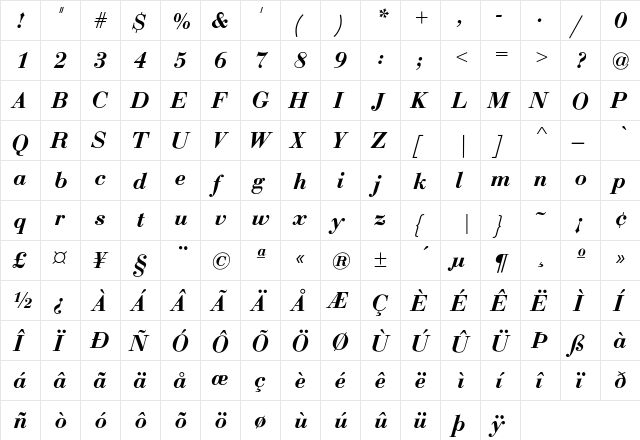
Bodoni-BoldItalic-DTC Regular Font Preview
Design Context for Bodoni-BoldItalic-DTC Typeface
Bodoni-BoldItalic-DTC takes a measured approach to typography — its balanced proportions and neutral character make it a reliable workhorse for both digital and print work. Its italic angle brings a sense of urgency and motion to the letterforms. The heavy weight commands attention and anchors typographic hierarchies.
Pro Tip: Try Bodoni-BoldItalic-DTC for annotation and caption copy alongside an upright companion — the contrast in angle creates a dynamic but ordered typographic system.